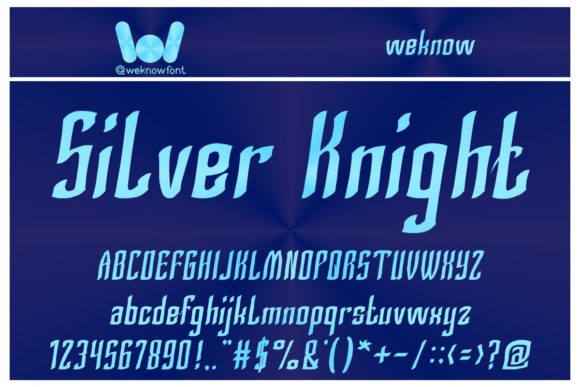
Introducing Silver Knight Font - A Legacy of Elegance and Boldness for Your Design Masterpieces
In the realm of typography, where letters dance and stories unfold, there exists a font that captivates the senses and leaves an indelible mark on every design it graces - Silver Knight. This majestic display font, meticulously crafted by the artisans at weknow, is a testament to the power of creativity and the allure of timeless elegance.
Unleash the Majesty of Your Words with Silver Knight, a Font Fit for Royalty
Silver Knight is not merely a font; it's an expression of artistry, a symbol of sophistication, and a gateway to a world of captivating designs. Its meticulously crafted characters, reminiscent of a bygone era of chivalry and grandeur, exude an aura of royalty and prestige, elevating your words to new heights of eloquence.
Immerse Yourself in a World of Creative Possibilities with Silver Knight, the Versatile Font
With Silver Knight, the possibilities are boundless. Its versatility extends from the grandeur of logos and corporate identities to the vibrancy of apparel designs, posters, and book covers. Let your imagination soar as you craft captivating YouTube videos, Instagram posts, and website designs that leave a lasting impression. Silver Knight seamlessly adapts to your creative vision, allowing you to tell stories and convey messages with unparalleled impact.
Elevate Your Designs with the Allure of Silver Knight, a Font Born for Headlines
In the world of design, headlines hold the power to captivate, intrigue, and persuade. With Silver Knight as your weapon of choice, you can craft headlines that command attention and leave an unforgettable mark on your audience. Its bold and striking presence demands attention, drawing readers in and compelling them to delve deeper into your content. Let Silver Knight be your herald, announcing your message with a flourish of elegance and authority.
Make Silver Knight Your Creative Ally and Witness the Transformation of Your Designs
Silver Knight is not just a font; it's an investment in your creative endeavors. Its timeless beauty and unwavering versatility empower you to create designs that transcend trends and leave a lasting legacy. Whether you're a seasoned designer seeking to elevate your work or an aspiring artist yearning to unleash your creativity, Silver Knight is your steadfast companion, guiding you towards design excellence.
Embrace the Legacy of Silver Knight and Ascend to New Heights of Design Mastery
Join the ranks of creative visionaries who have harnessed the power of Silver Knight to elevate their designs to new heights. Let this remarkable font be your ally as you embark on a journey of creativity, leaving an indelible mark on the world through your exceptional designs.